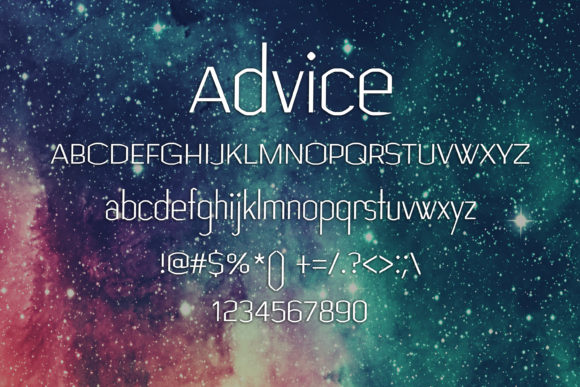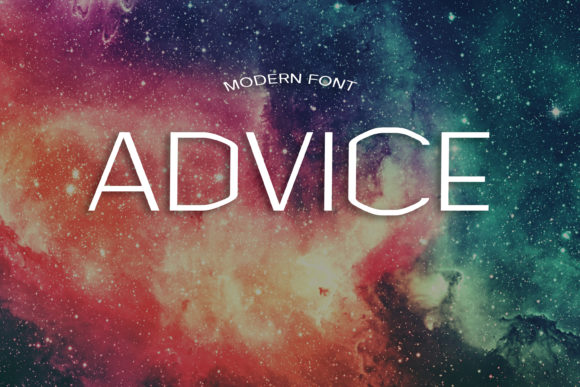
Introducing Advice Font: Elevate Your Designs with Elegance and Futurism
Are you a designer or crafter looking to take your visual creations to the next level? Look no further than the Advice Font, a stunning display font that exudes elegance and futurism. With its sleek lines and modern aesthetic, Advice Font is the perfect choice for anyone seeking to make a statement with their designs.
The Perfect Blend of Elegance and Futurism
Advice Font is a masterclass in typographic design, boasting a unique blend of elegance and futurism that sets it apart from other fonts on the market. Its slender lines and carefully crafted letterforms create a sense of sophistication and refinement, making it ideal for high-end branding, luxury packaging, and editorial design.
But Advice Font is more than just a pretty face. Its futuristic undertones give it a cutting-edge feel that’s perfect for tech startups, innovative products, and forward-thinking companies. Whether you’re looking to create a bold and eye-catching logo or a sleek and modern website, Advice Font has the versatility to bring your vision to life.
Stand Out from the Crowd with Advice Font
In a world where design is more competitive than ever, it’s essential to have a font that can help you stand out from the crowd. Advice Font is designed to make a statement, with a bold and confident presence that’s impossible to ignore. Its stunning display capabilities make it perfect for headlines, titles, and other attention-grabbing applications.
But what really sets Advice Font apart is its ability to elevate even the most mundane design ideas into something truly special. Whether you’re working on a branding project, a website, or a marketing campaign, Advice Font has the power to transform your design into a standout masterpiece.
One of the things that makes Advice Font so exciting is its endless possibilities for designers and crafters. Whether you’re working on a digital project or a physical one, Advice Font can be used in a variety of ways to add a touch of elegance and futurism to your design.
For digital designers, Advice Font is perfect for:
• Websites and landing pages
• Social media graphics and ads
• Email marketing campaigns
• Digital branding and logos
For crafters and makers, Advice Font is ideal for:
• Handmade products and packaging
• Signs and banners
• Stationery and invitations
• DIY projects and crafts
With Advice Font, you have the power to transform your designs into something truly stunning. Whether you’re a seasoned designer or a crafty DIY enthusiast, this incredible font is sure to take your visual creations to new heights.
Key Features of Advice Font
• Elegant and futuristic design
• Stunning display capabilities
• Perfect for headlines, titles, and attention-grabbing applications
• Endless possibilities for digital and physical designs
• Easy to use and customize
In conclusion, Advice Font is a game-changing font that’s sure to revolutionize the way you approach design. With its incredible blend of elegance and futurism, Advice Font is the perfect choice for designers and crafters looking to create stunning visual creations that stand out from the crowd.